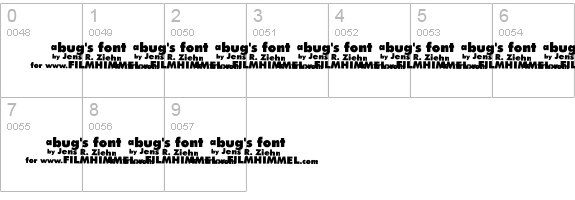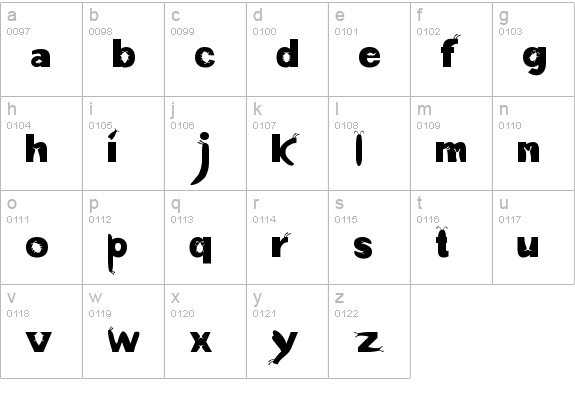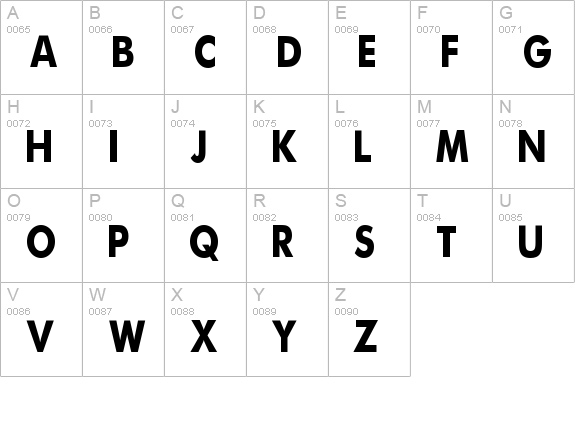
a bug's life Font Details
The Bug's Life Font is a delightful and whimsical typeface that perfectly captures the charm and playfulness of this beloved animated film. Designed with intricate details and a touch of nostalgia, this font brings to life the enchanting world of bugs and their extraordinary adventures. With its organic curves and playful letterforms, the Bug's Life Font is a perfect choice for adding a touch of magic to any design project. Whether you're creating party invitations, children's book covers, or animated movie posters, this font will effortlessly transport your audience into the captivating world of bugs. What makes the Bug's Life Font even more remarkable is that it is available for free! Yes, you read that right. This font can be freely downloaded at FontsMarket.com, allowing you to bring a piece of bug-inspired magic into your creative endeavors without any cost. Designed with the utmost care and attention to detail, the Bug's Life Font will add a unique and captivating touch to any project. Its versatility and whimsical charm make it suitable for a wide range of applications, from digital designs to printed materials. So why wait? Download the Bug's Life Font for free at FontsMarket.com and let your imagination take flight with this enchanting typeface. Whether you're a professional designer or simply a fan of the Bug's Life movie, this font is a must-have in your creative arsenal. Embrace the magic of bugs and watch your designs come to life!